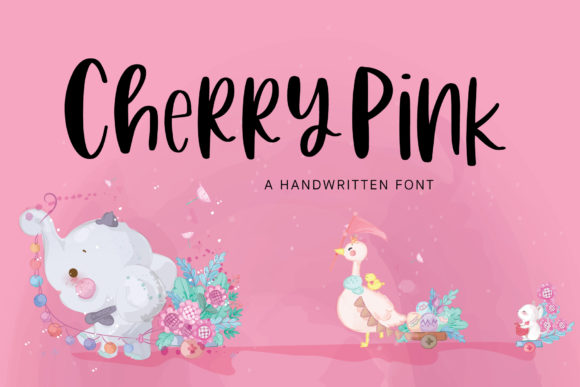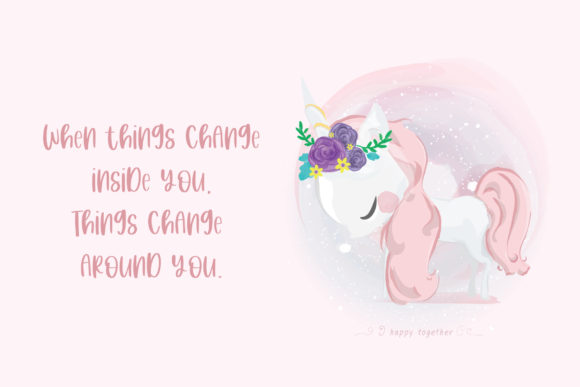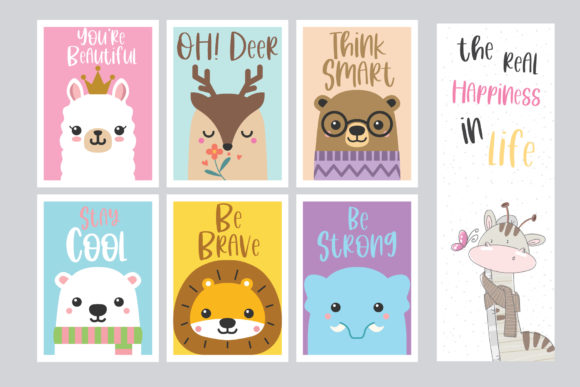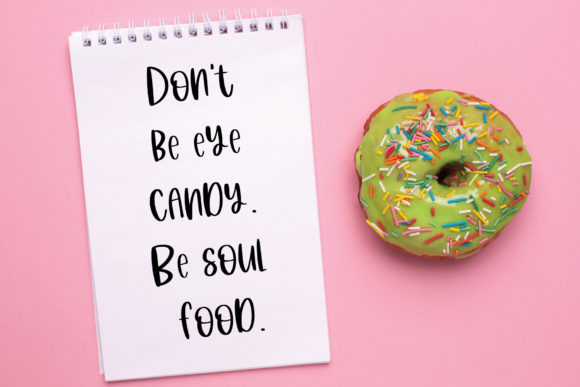
Cherry Pink Font
About Cherry Pink Font
Cherry Pink is a sweet and cute handwritten font. This beautiful font is the perfect choice for any crafting project!